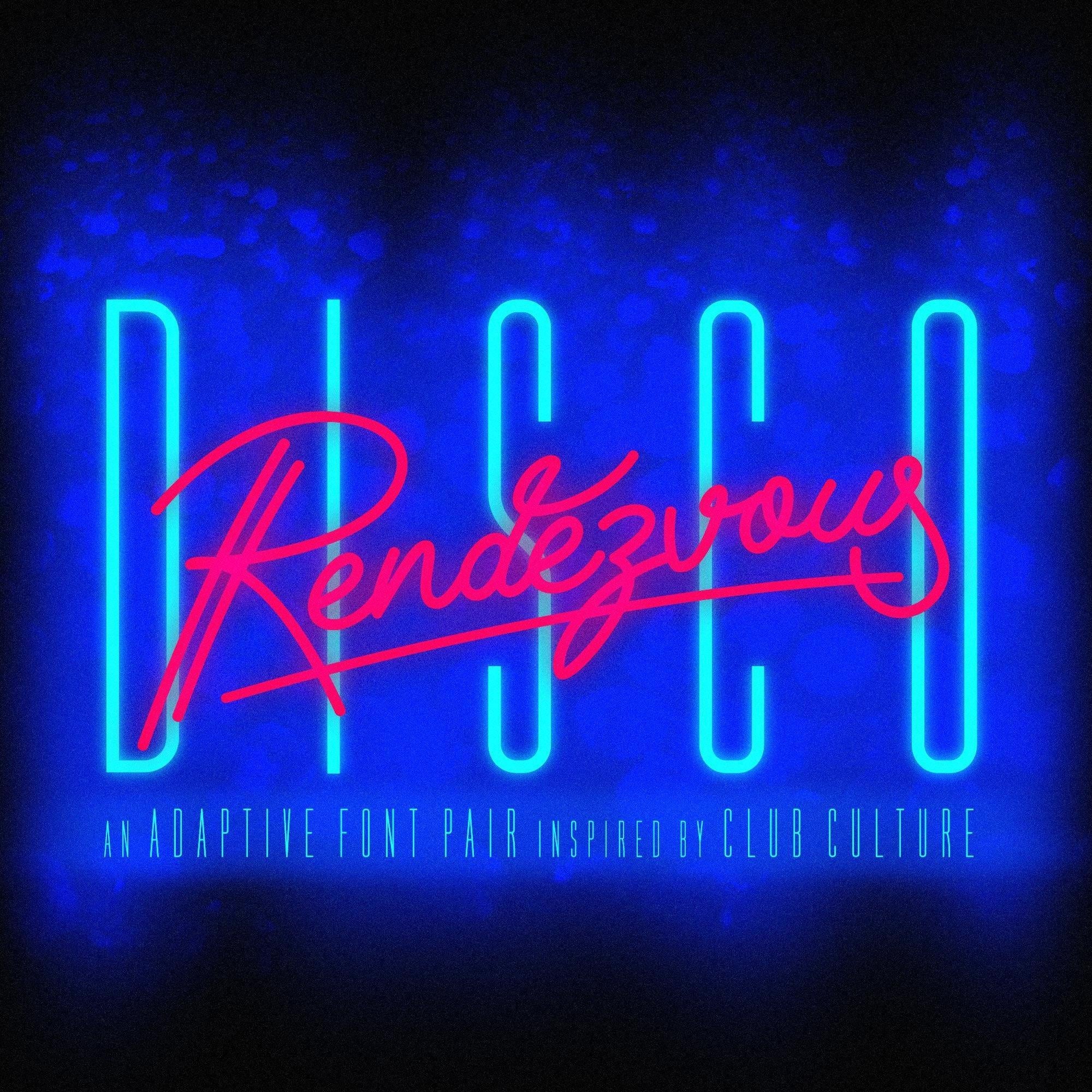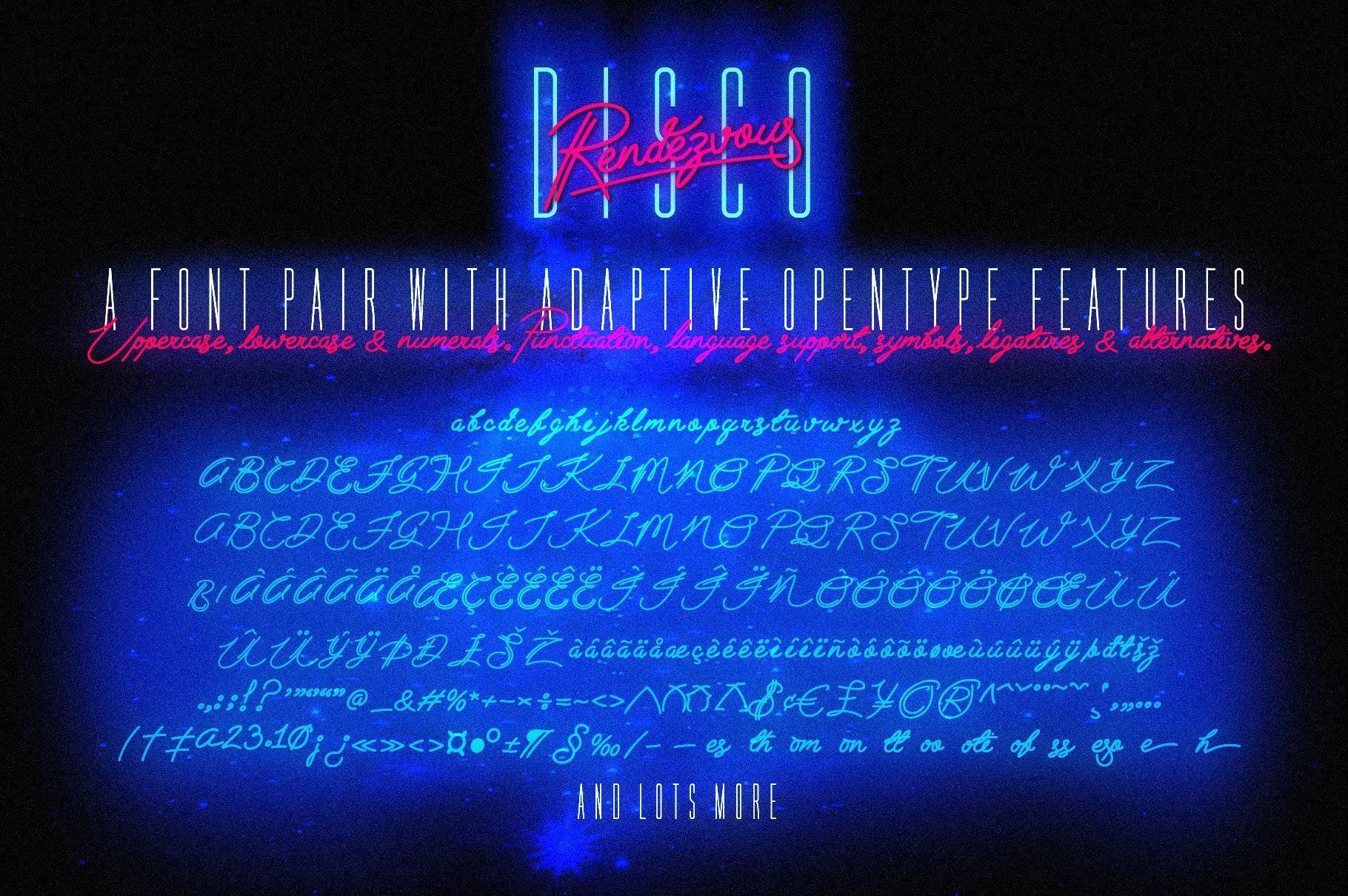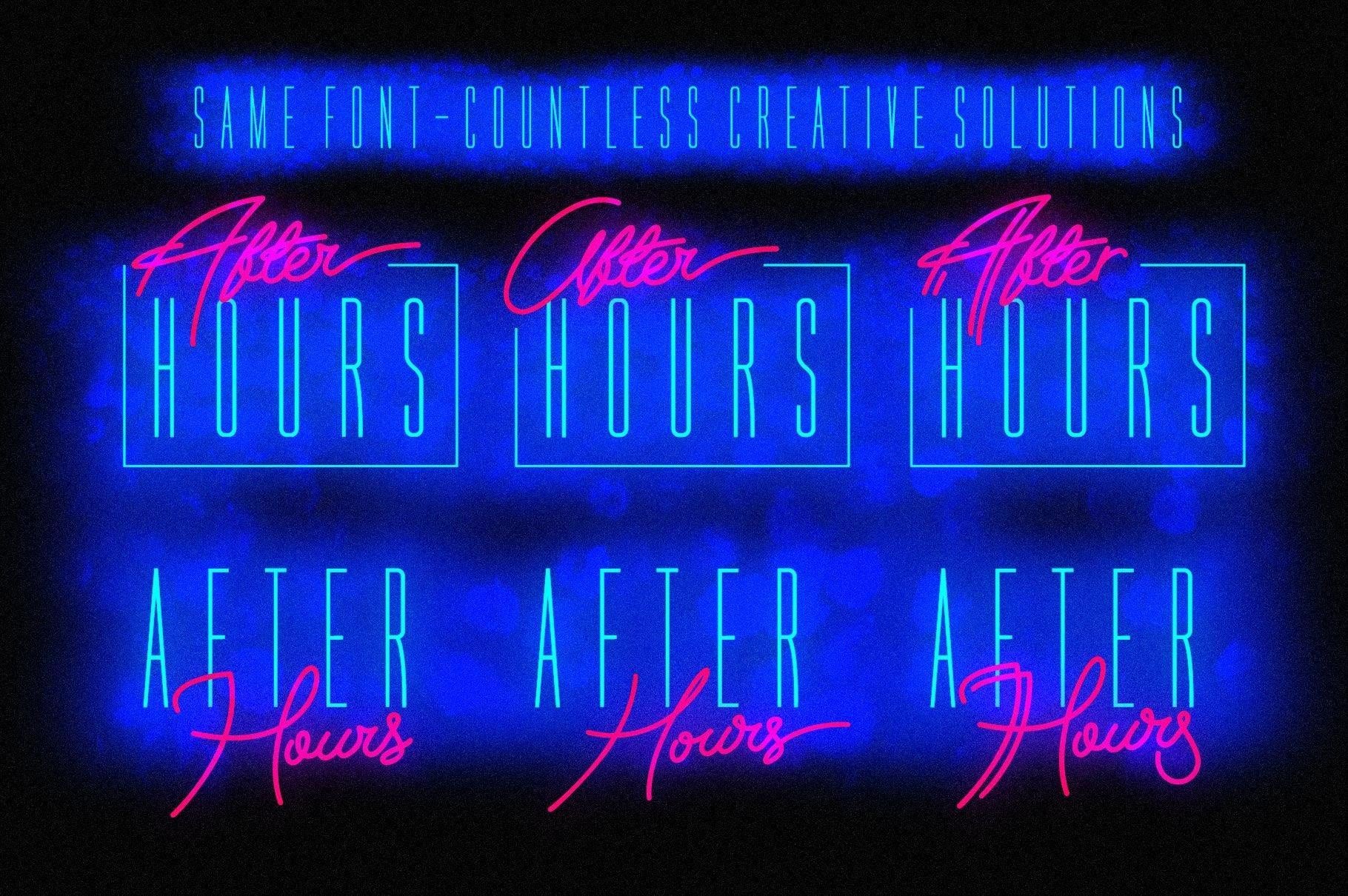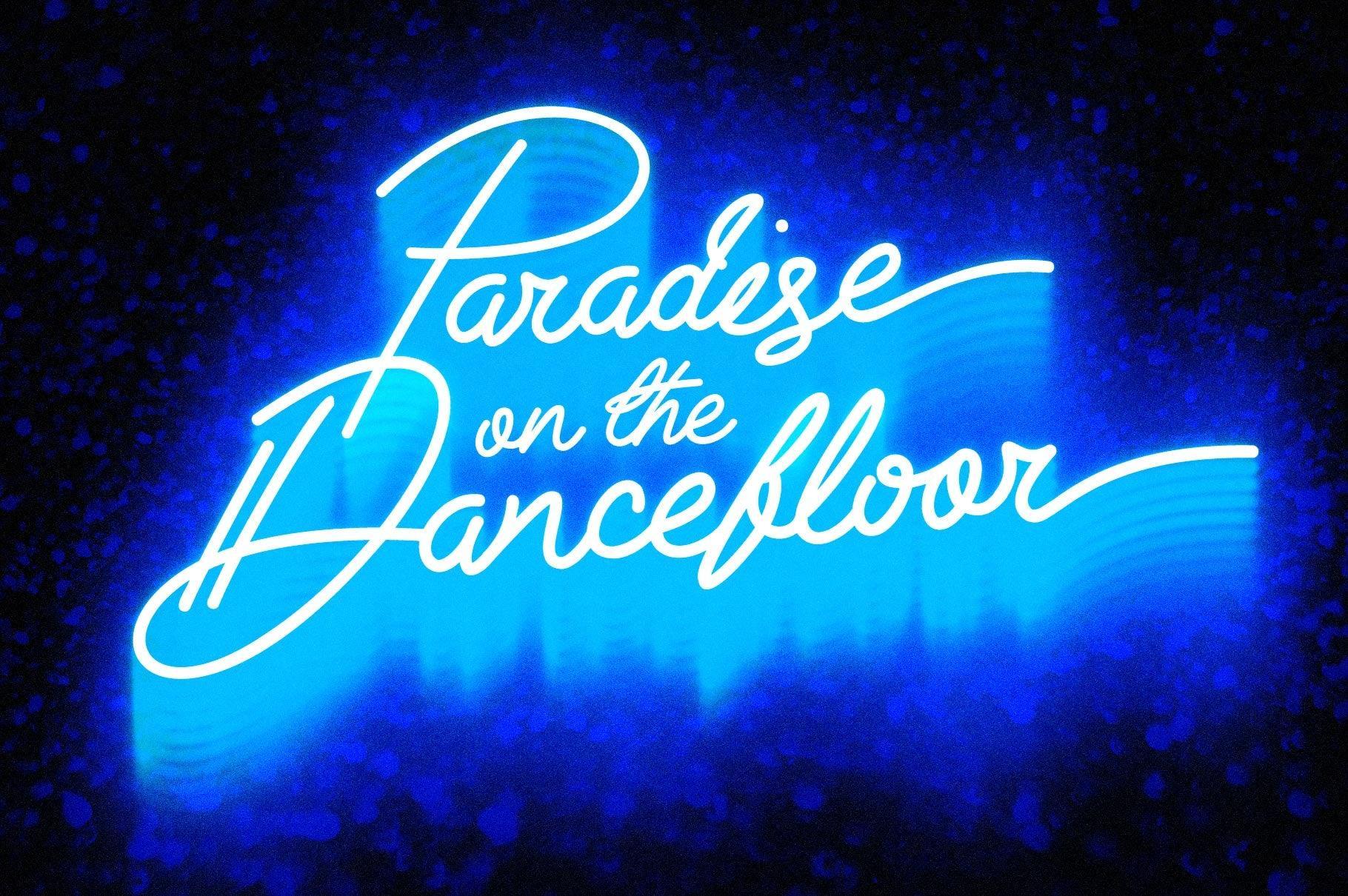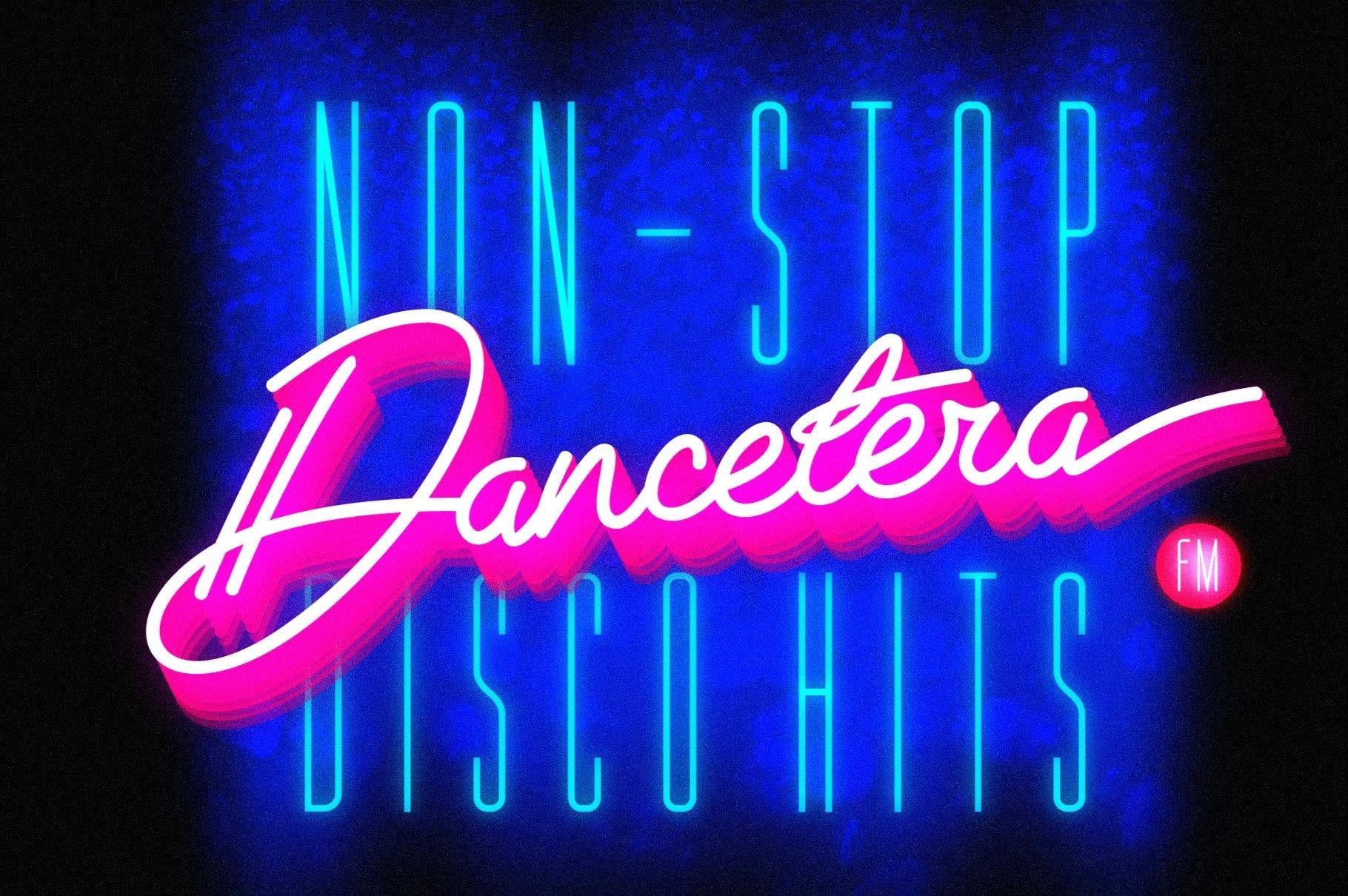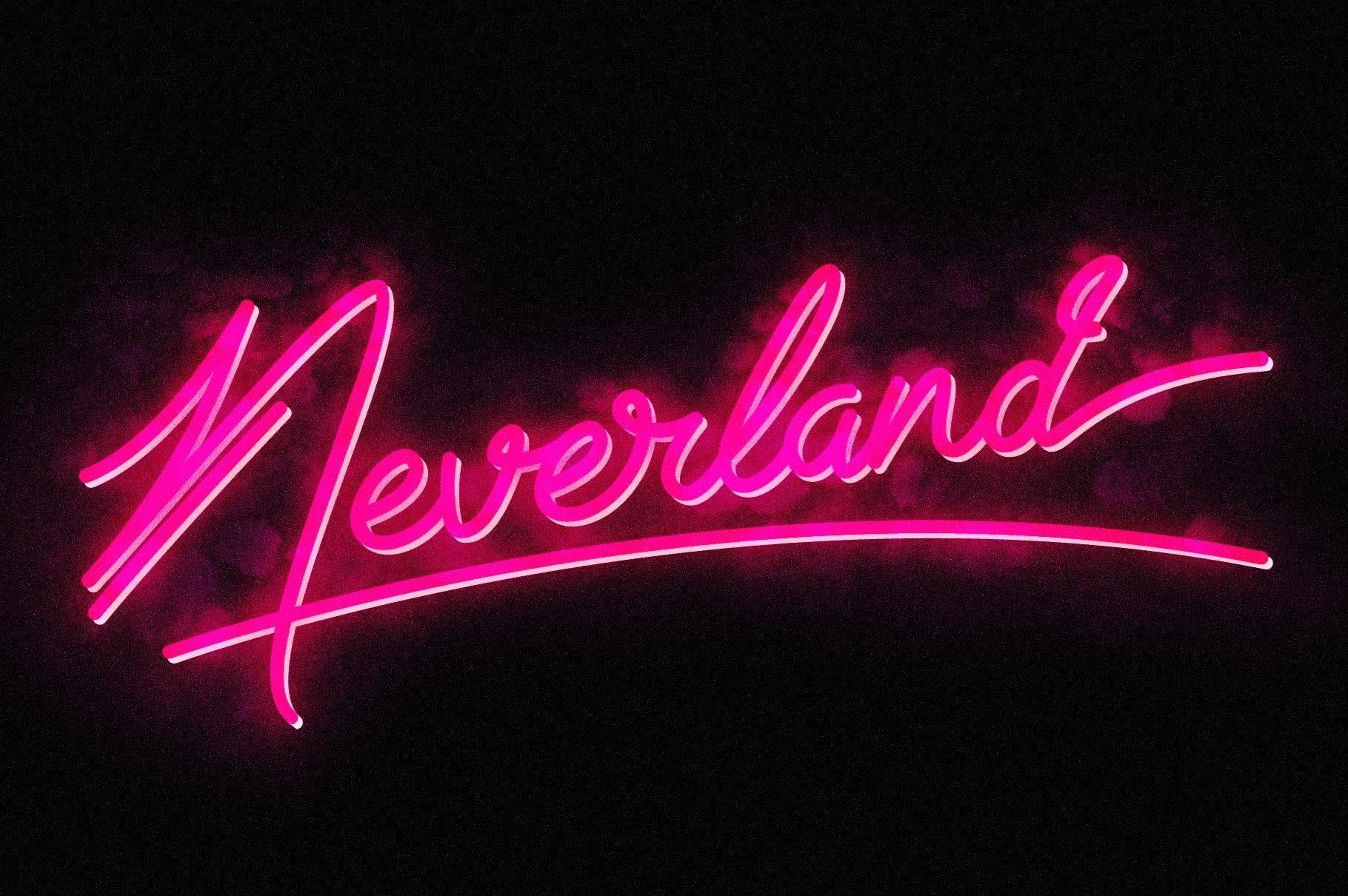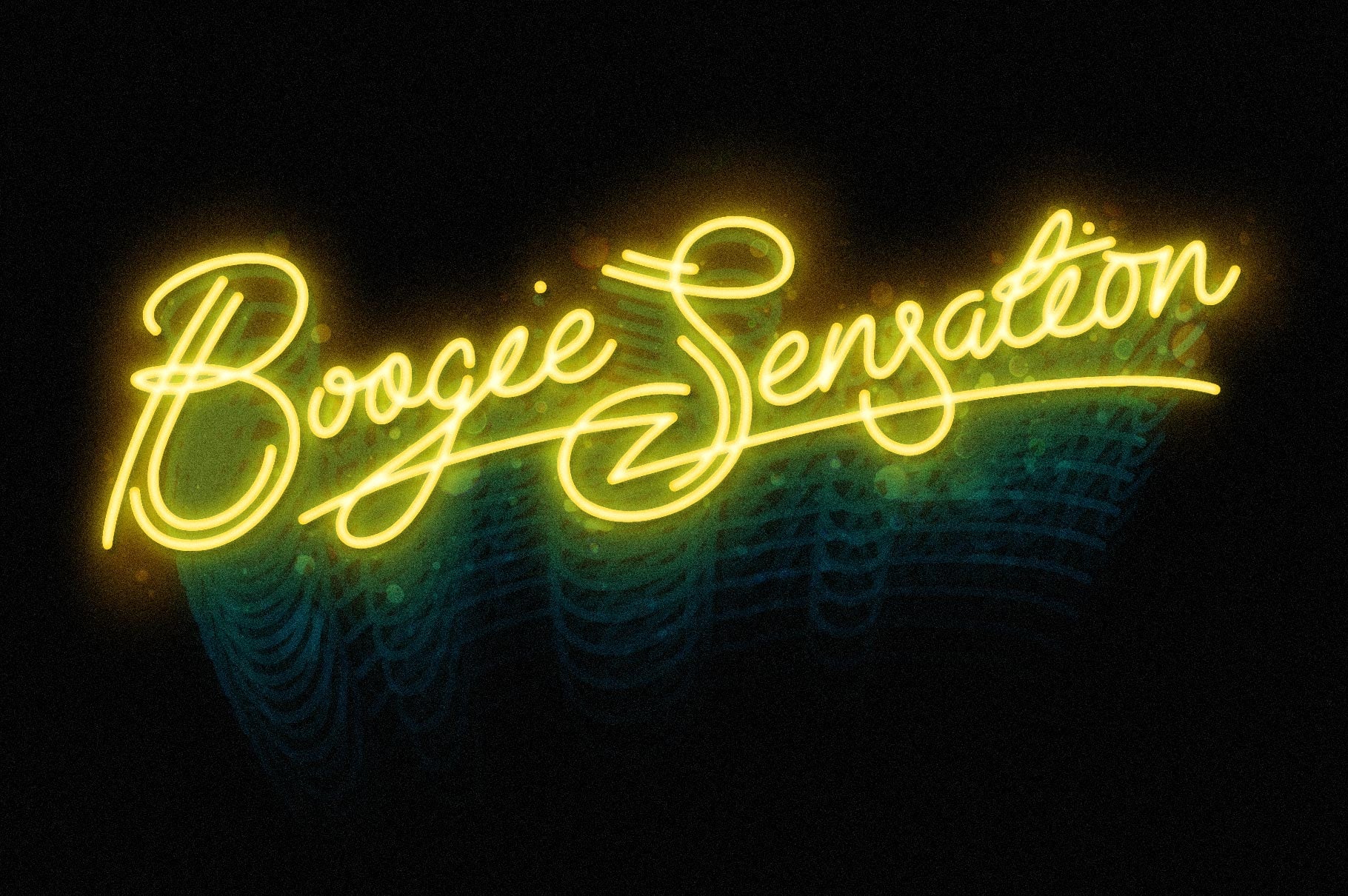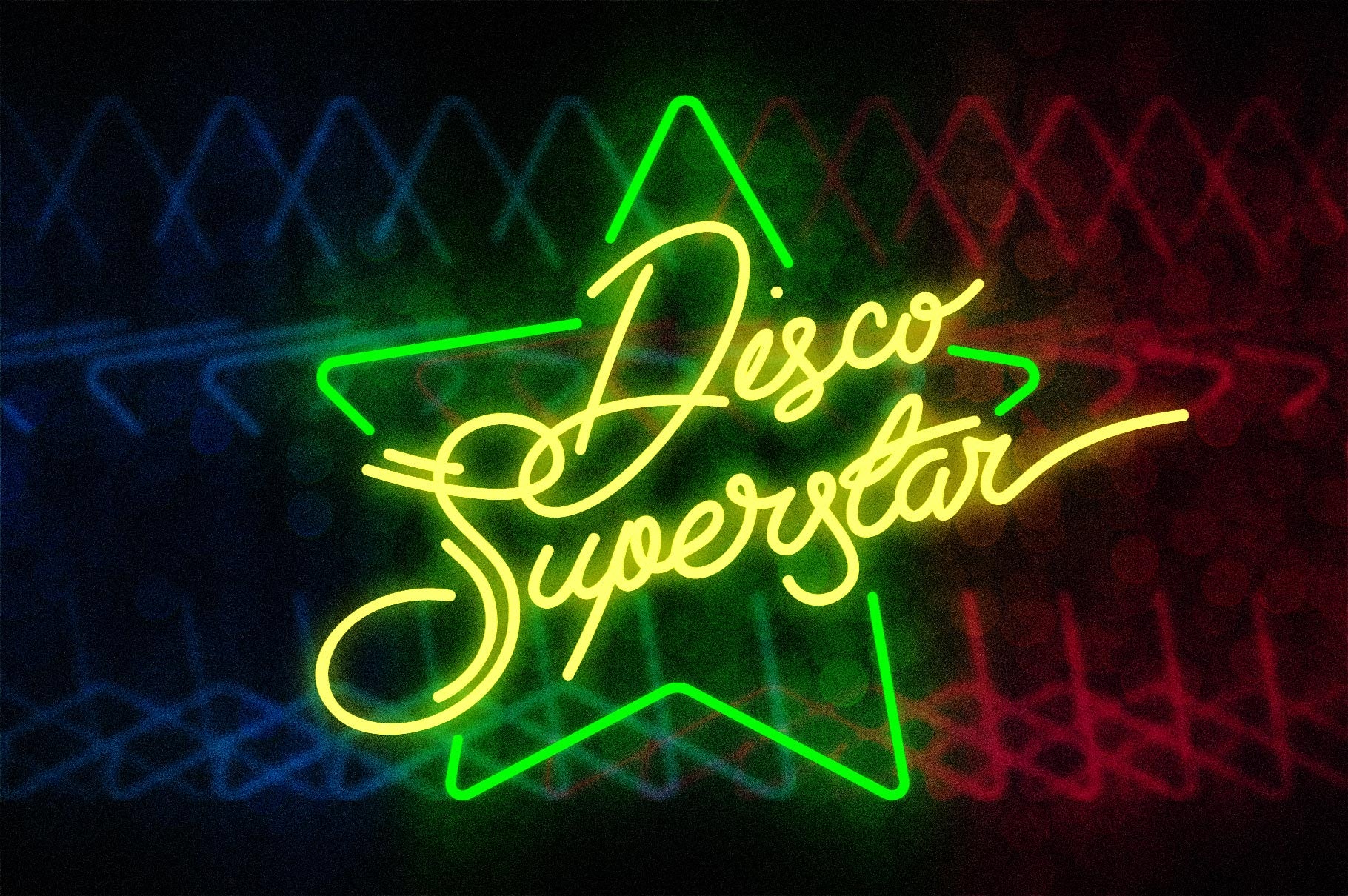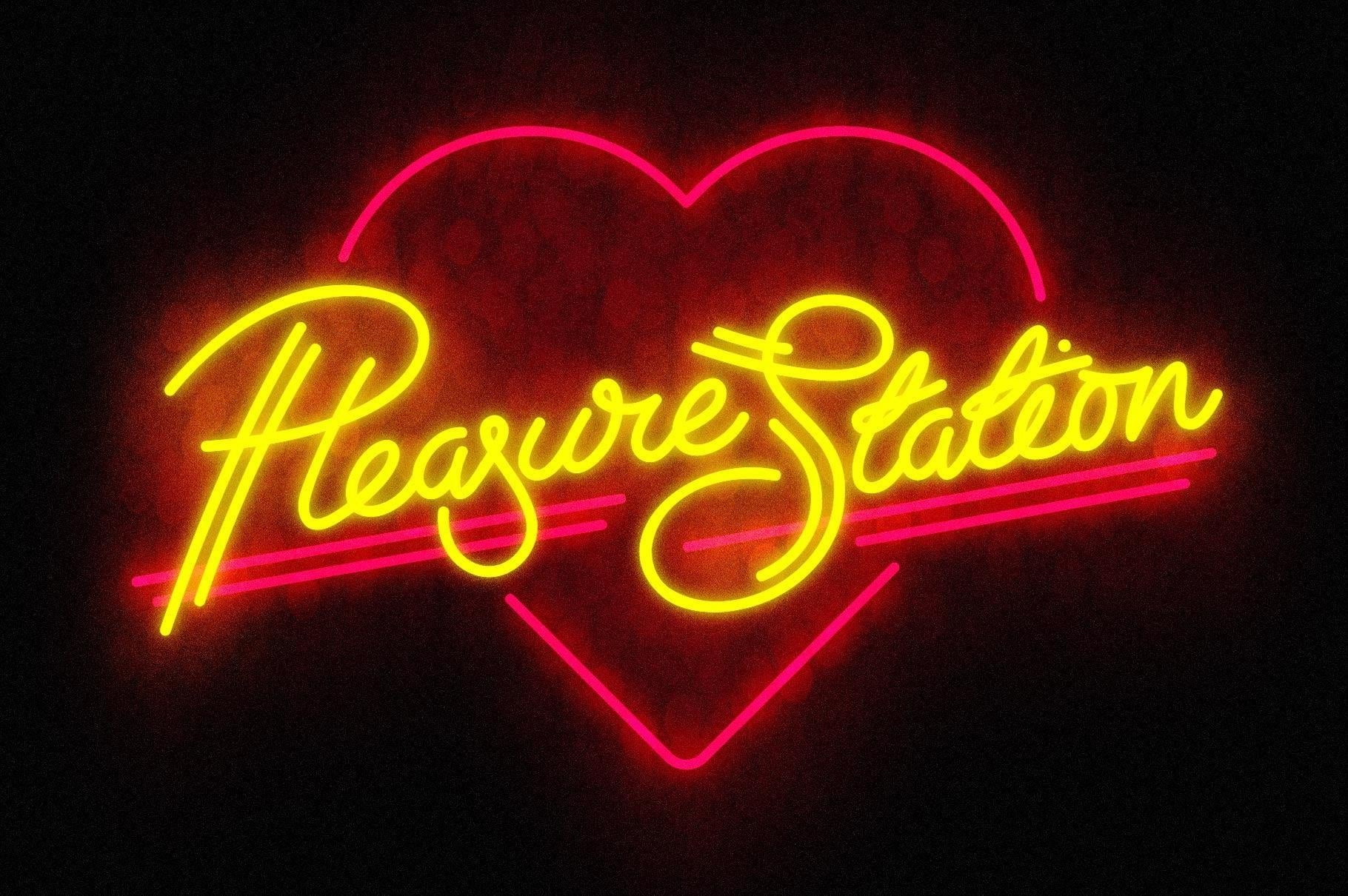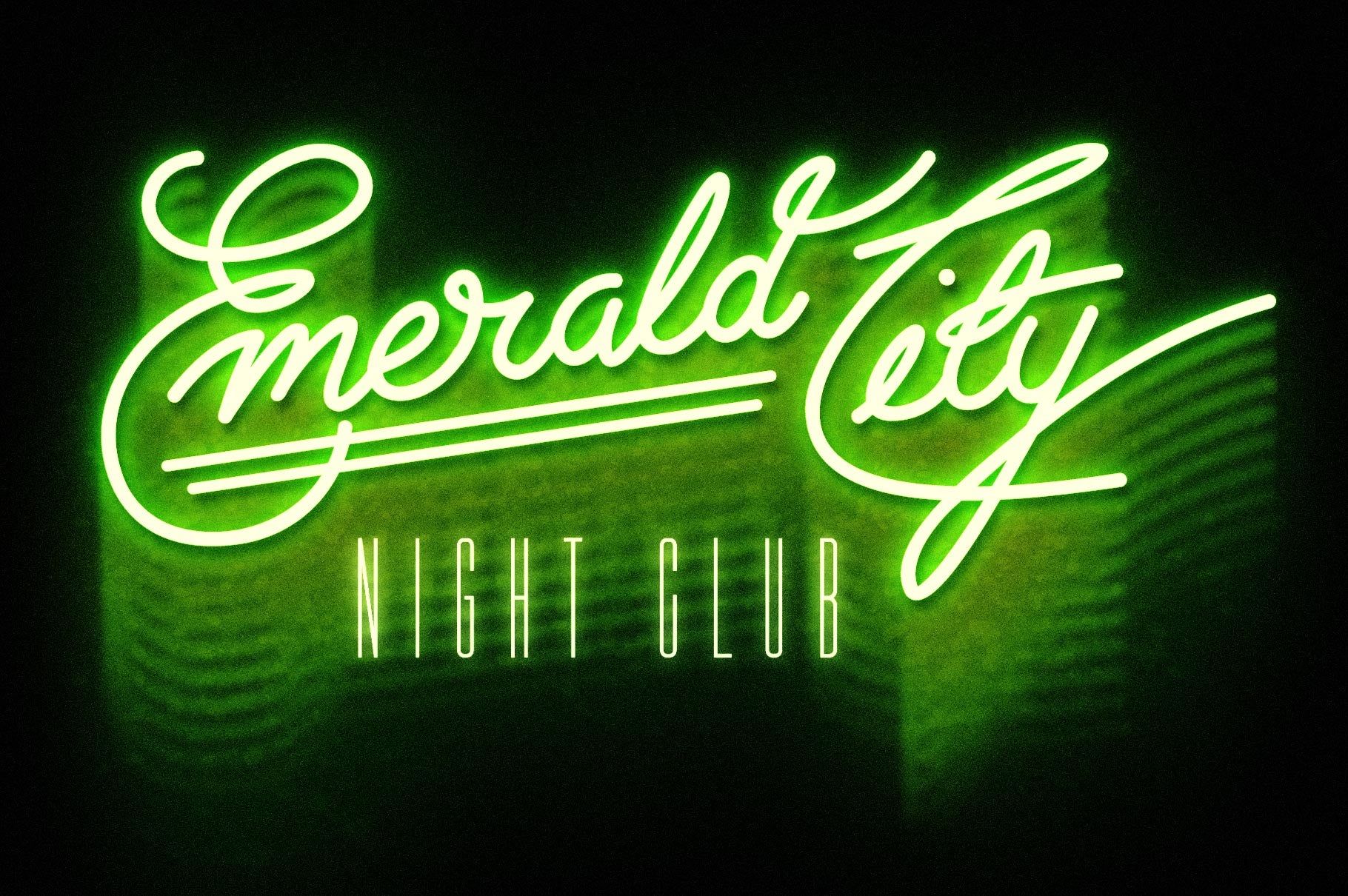
Disco Rendezvous: A Night Club Inspired Script Font Pair
Disco Rendezvous is a versatile font pair featuring an elegant script and a tall sans serif font, inspired by neon club culture. It includes a complete set of uppercase and lowercase characters, numerals, punctuation, and extensive language support, along with customizable OpenType features for alternative characters and ligatures.
Ideal for retro-inspired graphic design and nightlife branding. Perfect for posters, event flyers, album covers, and social media graphics, ensuring a vibrant and authentic aesthetic that captures the essence of disco culture.